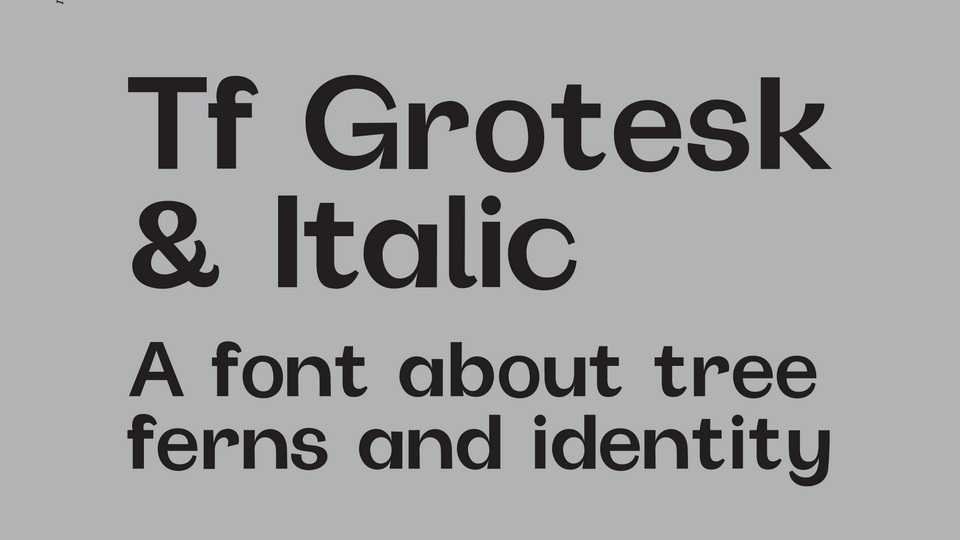
Download Tf Grotesk font, a typeface that celebrates New Zealand identity. Sitting somewhere between a Humanist and a Grotesk display font, Tf Grotesk takes much of it’s visual forms from the five main varieties of New Zealand native tree ferns
Designer: Matilda Stein